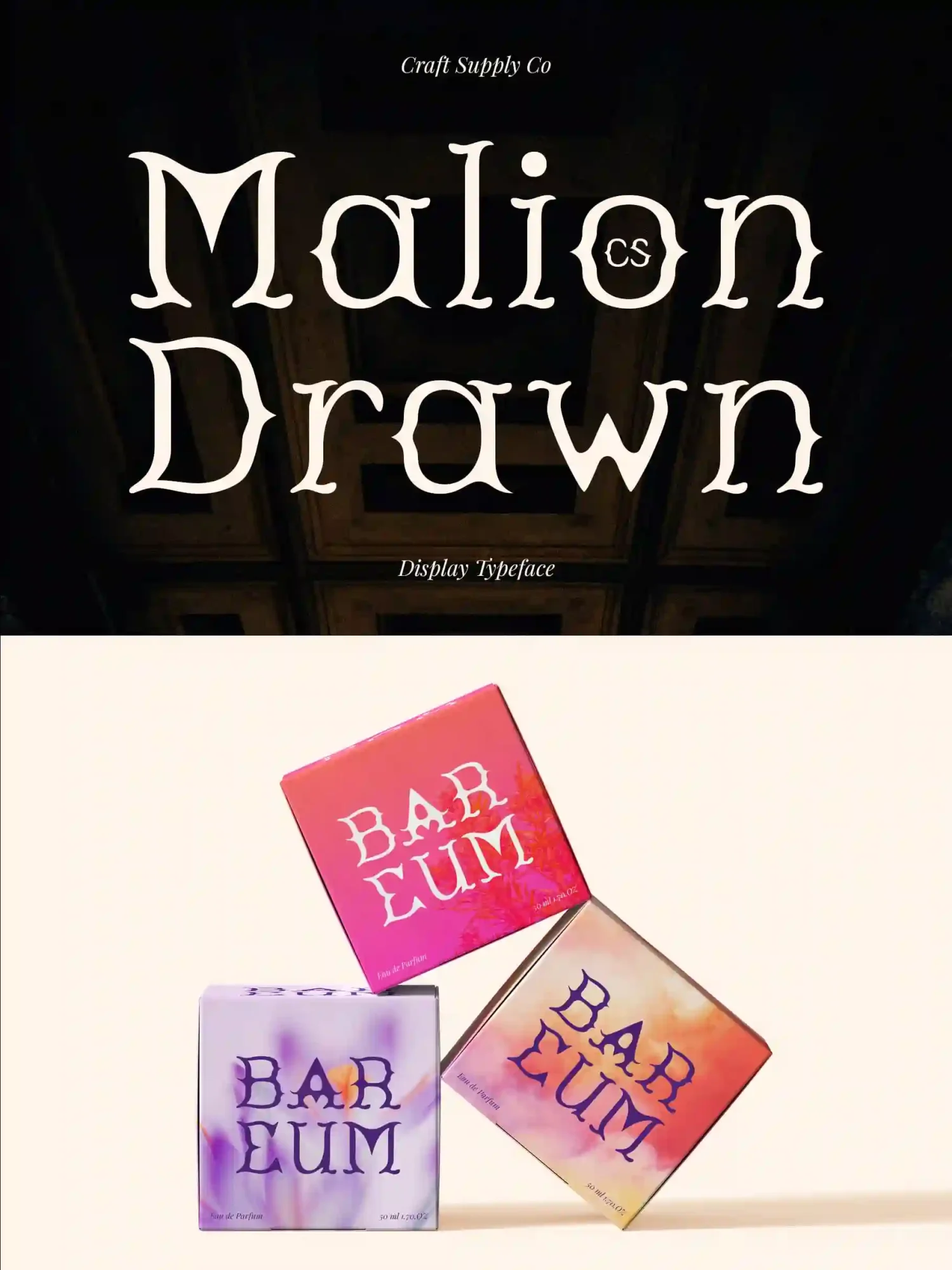
CS Malion Drawn – Elegant Modern-Classic Display Serif Font
Sophisticated and Contemporary Style
CS Malion Drawn is a modern-classic display serif font featuring clean, decorative, and contemporary letterforms. Its precise structure is enriched with a subtle drawn effect, adding artistic texture that makes each character feel lively and handcrafted.
Artistic Detail Meets Modern Elegance
The font combines classic stylistic influences with modern design sensibilities. Its decorative details and drawn texture create a visual balance between elegance and freshness, giving your projects a refined yet expressive look.